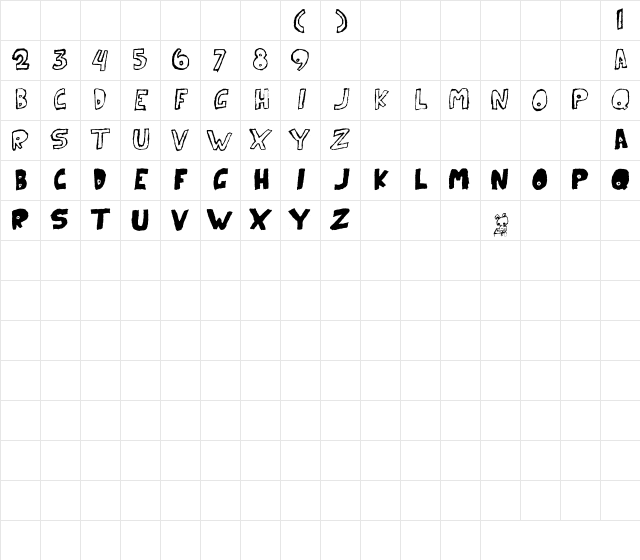
Paranoid Rabbit Regular Free Font
Paranoid Rabbit Regular
Designer: Eric Wiryanata
Design Context for Paranoid Rabbit
Paranoid Rabbit is a composed and adaptable typeface that performs quietly and consistently across a wide range of design contexts.